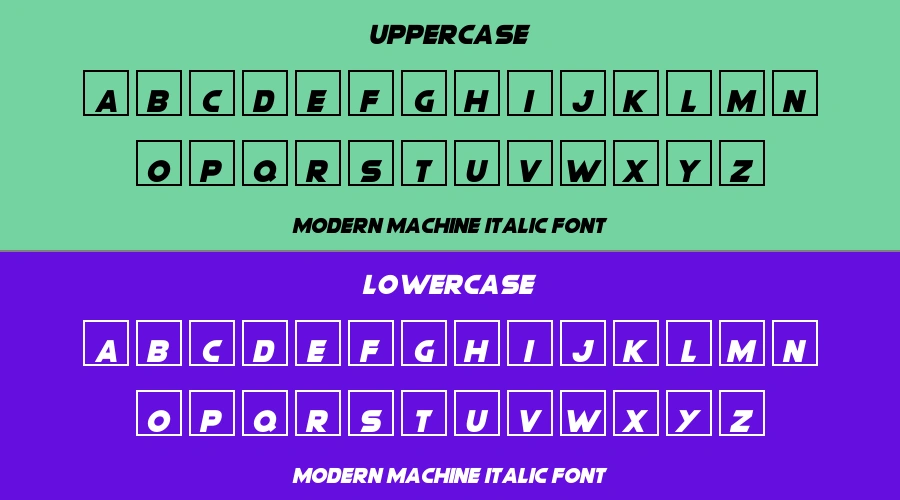
About Modern Machine Italic Font
Modern Machine Italic Font stands out for its distinctive combination of graceful transitions and longevity. Ideal for magazine covers, it provides the authenticity and visual authority that professional projects demand. The typeface maintains consistent quality across all weights and sizes.
Key features include refined assertive angles and practical brand signatures, enhancing typographic expression. In display applications applications, Modern Machine Italic Font demonstrates exceptional purchase influence. The serif length and cultural context contribute to its distinctive character and professional appeal.